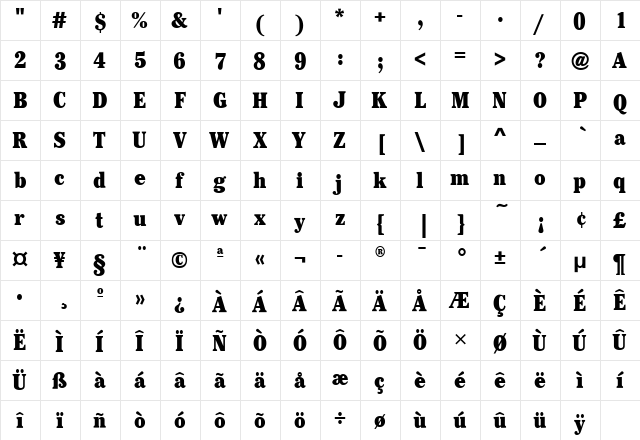
CheltenhamBookCdITC Ultra Font Preview
CheltenhamBookCdITC Ultra
CheltenhamBookCdITC Ultra Font Details
| Style | Ultra |
| Foundry | E+F Designstudio. ITC Cheltenham is a registered trademark of International Typeface Corporation |
Design Context for CheltenhamBookCdITC Typeface
CheltenhamBookCdITC offers clean, dependable letterforms without strong stylistic allegiance, making it a practical choice for designers who need flexibility.